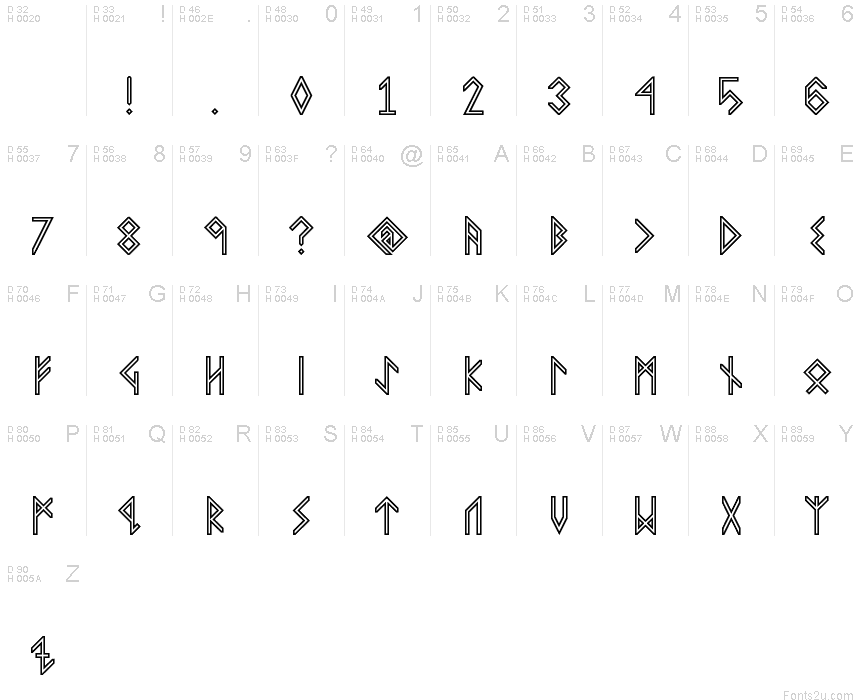
Viking, Middle Runes by flansburg_design of FontStruct is a free runic display font with tall, angular symbols drawn as open linear forms. Sharp folds and mirrored joins recur throughout the alphabet.
Its Norse-inspired genre makes it well suited to modern game titles, historical-fantasy posters, and themed merchandise, where the lettering can become part of an emblem. The rune-like forms also fit museum-event graphics and mythology publishing, echoing carved artifacts, shields, and knot-pattern illustration within the same historical genre.
VIKING is a false-historical font derived from Elder Futhark runes. The typeface is based on ancient Germanic symbols later adapted by the Goths, Anglo-Saxons, Vikings, and the Third Reich, and depicted as Dwarven Runes in fantasy genres.
ELDER VIKING is an almost exact interpretation of Elder Futhark, with additional characters corresponding as closely as possible to the basic 26 uppercase Latin characters.
MIDDLE VIKING is the second-generation evolution of a rune system based on Elder Futhark. It is designed as a semi-cryptic typeface intended to be almost readable as a Latin equivalent, unlike ELDER VIKING. It contains numeric runes and basic punctuation.
YOUNGER VIKING is the third-generation rune typeface and a fully modern interpretation of Elder Futhark. Also known as “SPACE VIKING,” it contains uppercase and lowercase characters, numbers, and various punctuation marks.